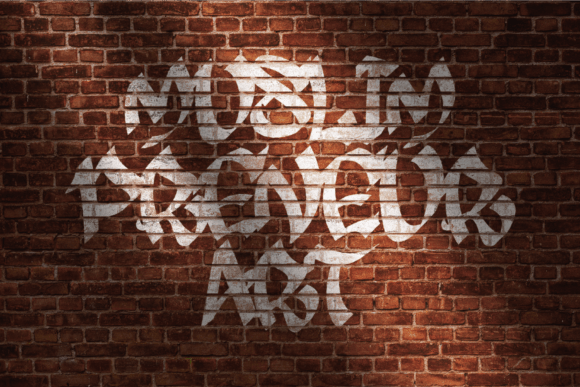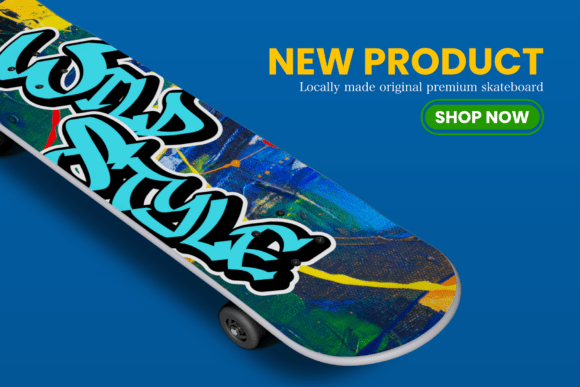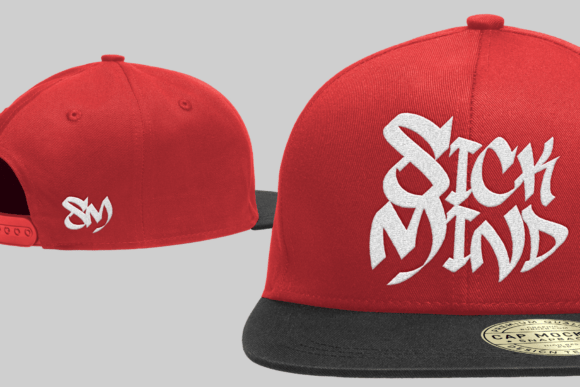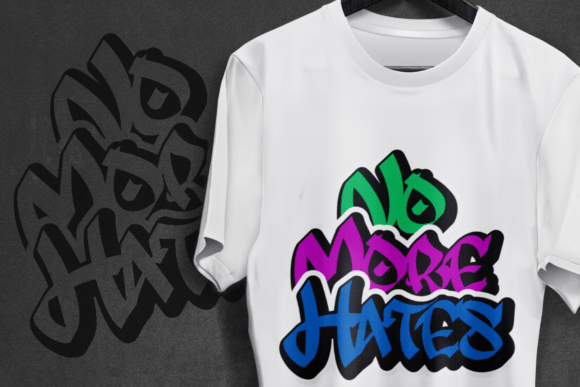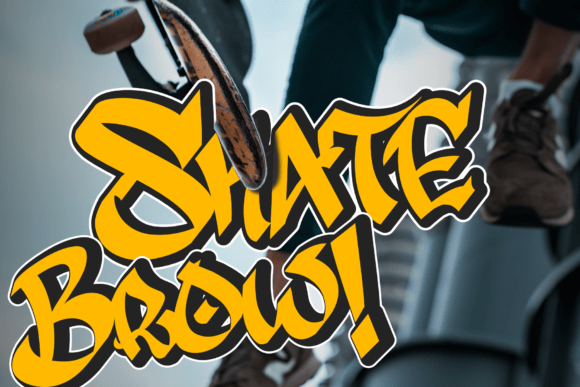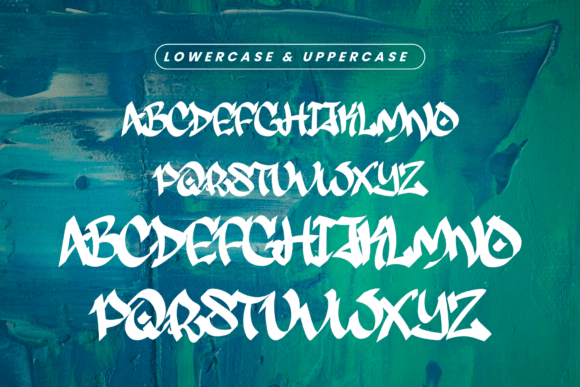
Introduction to Monstreal Font
Have you ever stared at a blank canvas, waiting for the perfect idea to strike, only to have it come to you in the most unexpected way? For designers, those ‘aha’ moments are what make all the late nights and early mornings worth it. It’s in those moments that we discover the perfect combination of creativity and skill to bring our vision to life. And for those who dare to be bold, there’s the Monstreal Font – a stunning graffiti font that’s about to take your street art designs to the next level.
Whether you’re working on a high-end branding project or a creative campaign for a magazine, the Monstreal Font is the perfect design resource to add some edge to your work. Its elegant and bold style makes it readable even on a transparent background, ensuring that your message shines through with precision. With its high quality and free download option, this font is a valuable asset for designers who want to make a statement with their work.
Key Features of Monstreal Font
- High-quality font design, ideal for creative projects requiring a unique and eye-catching look.
- Unique characteristics include bold lines, rounded edges, and a distressed texture, adding a vintage touch to any design.
- Perfect for designers and artists looking for a high-quality design resource that can elevate their creative project.
Honest Review: Monstreal Font
As a designer, I’ve had my fair share of fonts, but the Monstreal Font has left me impressed. This font is perfect for any creative project that requires a modern and edgy touch.
One of the standout features of the Monstreal Font is its high quality and versatility. It’s available for both personal and commercial use, making it a valuable design resource for any project. The font is also highly customizable, allowing you to adjust the size, color, and style to suit your needs.
Here are some of the things that work well with the Monstreal Font:
- ✨ High-quality design that looks great on any background
- ⚠️ Limited font styles, with only a few options to choose from
- ⚠️ Not ideal for large blocks of text, as it can become difficult to read
Overall, I’m impressed with the Monstreal Font and would highly recommend it for any design project that requires a modern and edgy touch.
Tips for Getting the Most Out of Monstreal Font
Monstreal Font is a high-quality font that can be used for a variety of design projects. To get the most out of it, consider using it with a transparent background to create a modern and sleek design. You can also experiment with different font sizes and colors to add visual interest to your design.
Monstreal Font is a versatile font that can be used for a variety of design projects, including presentations, documents, and graphics. Some common use cases for Monstreal Font include creating a logo, designing a brochure, and creating a social media graphic. With its high-quality design and transparent background, Monstreal Font is a great design resource for any creative project.